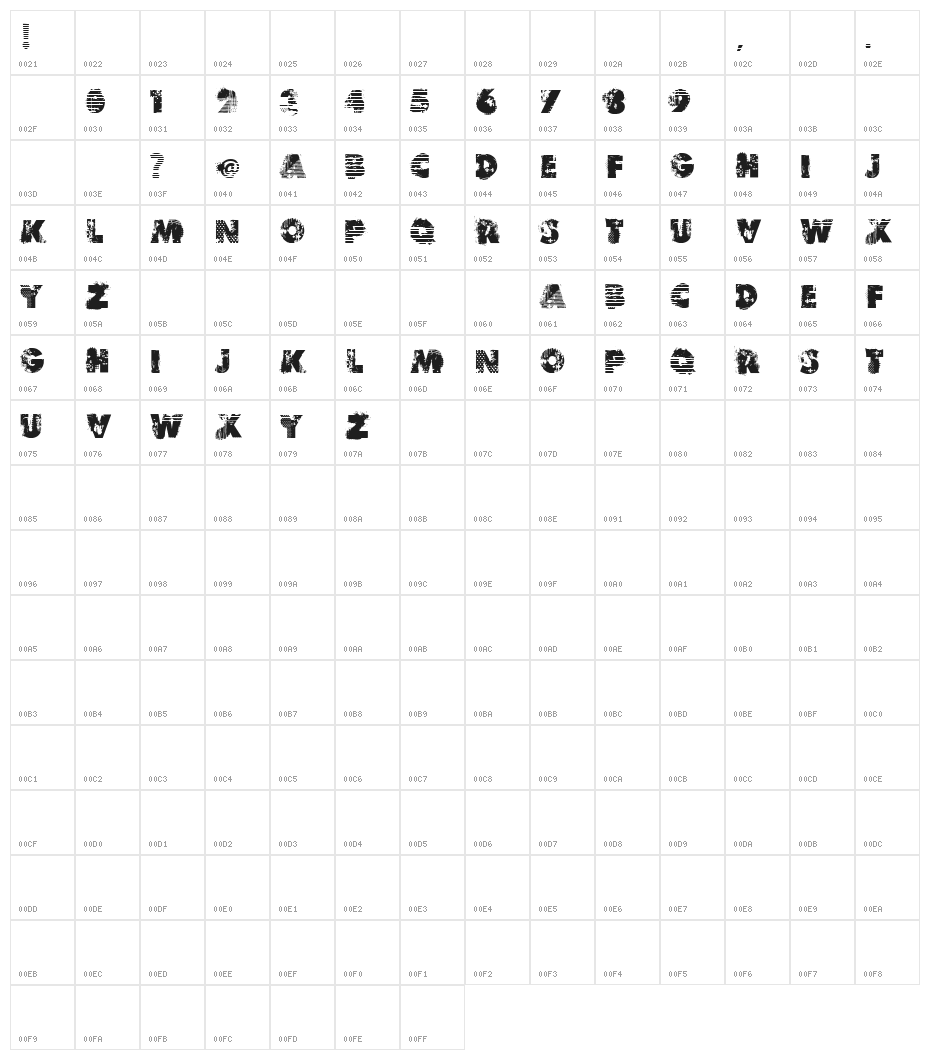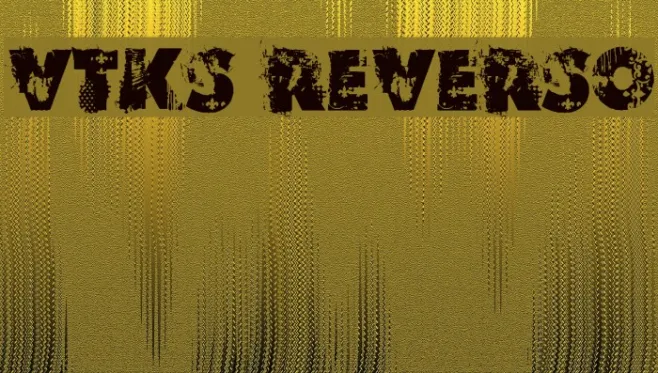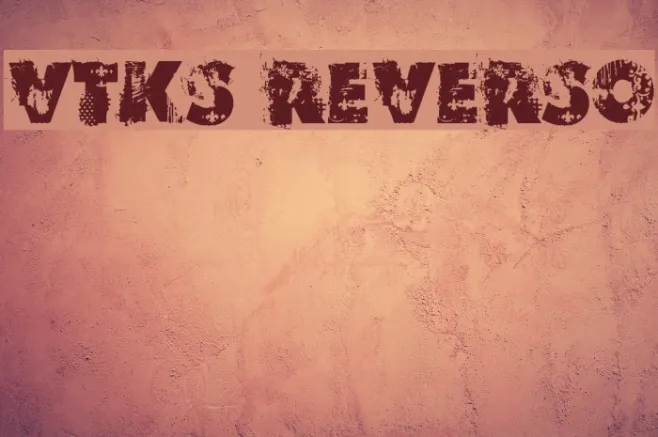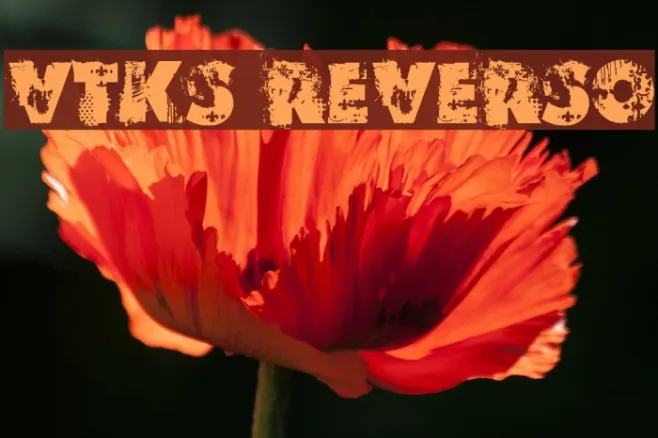
VTKS REVERSO Font
VTKS REVERSO Description
This font features a bold and distressed style, characterized by its unique grunge texture and uneven edges. The letters are heavily stylized with a mix of solid and fragmented areas, creating a dynamic and edgy appearance. The uppercase and lowercase letters maintain a consistent design, with numbers and special characters following the same aesthetic. The font's distinctive look makes it suitable for projects that require a bold statement or a rugged, urban feel.
| Overall Style | Grunge, Urban, Edgy |
| Proposed Projects | Ideal for album covers, posters, streetwear branding, and edgy graphic designs. |